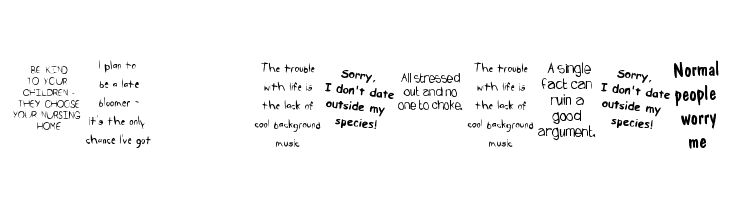
A playful, handwritten font with a quirky and dynamic style.
A playful, handwritten font with a casual and approachable style.
A bold, hand-drawn font with a playful and energetic style.
An expressive, hand-drawn font with dynamic and fluid strokes.
A casual, handwritten font with a playful and informal style.
A playful, handwritten font with a whimsical and childlike charm.